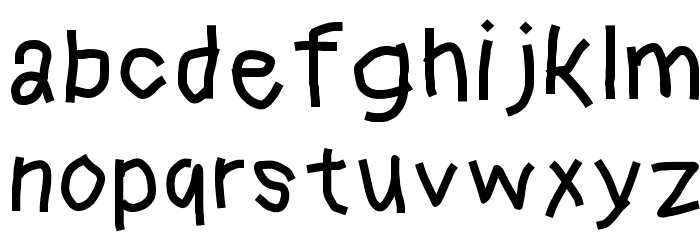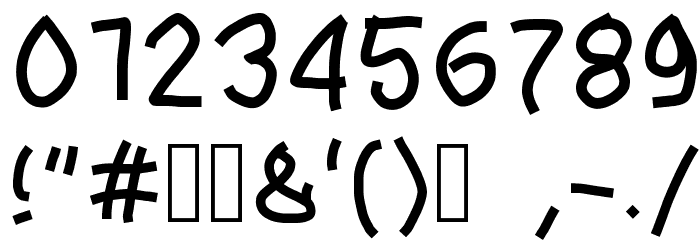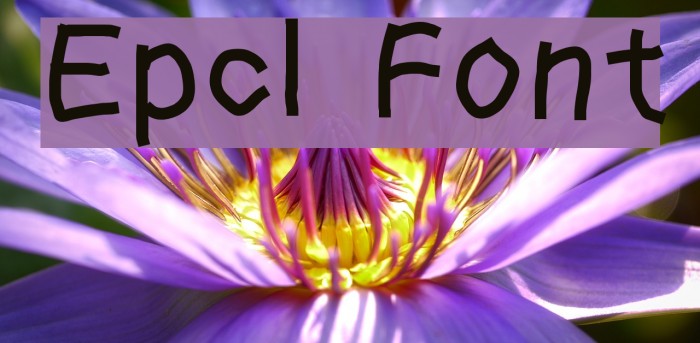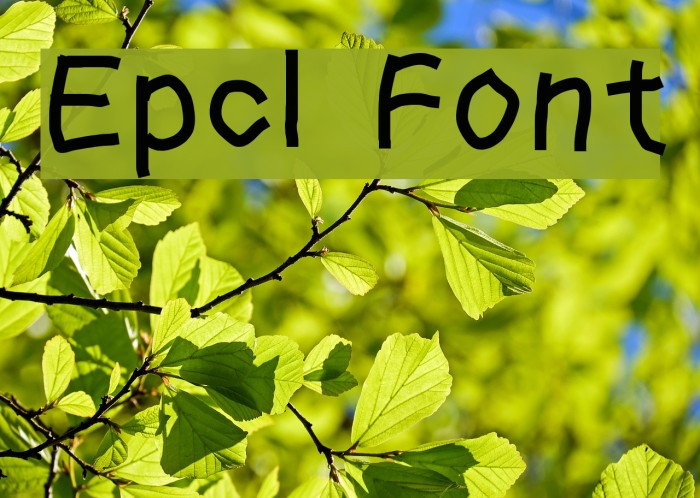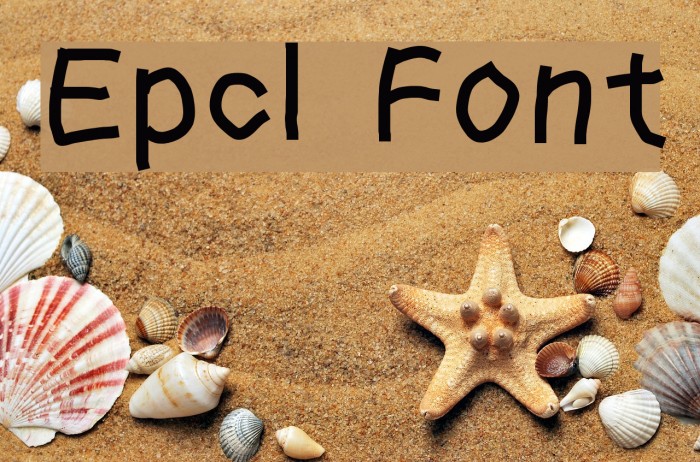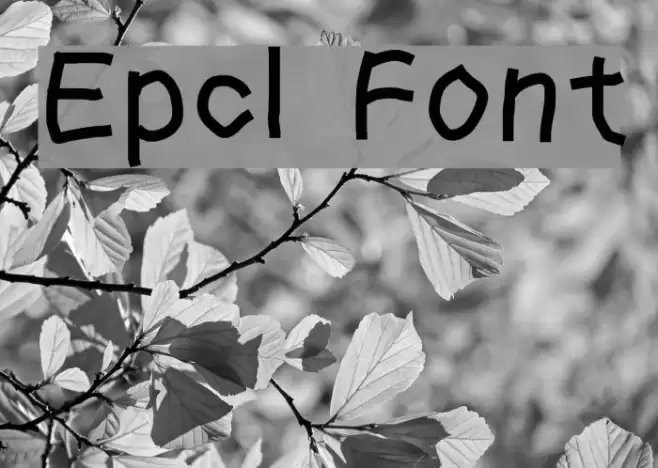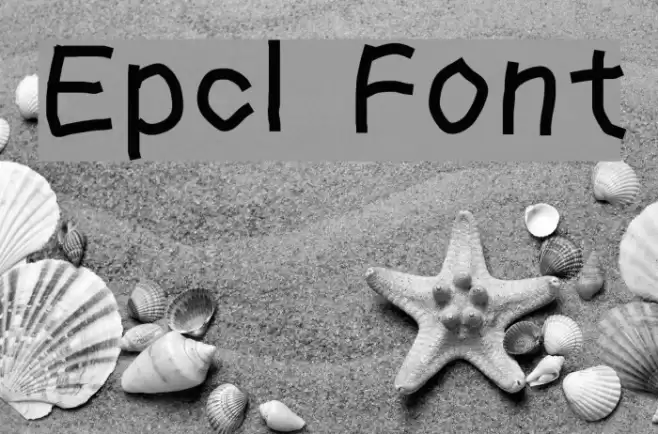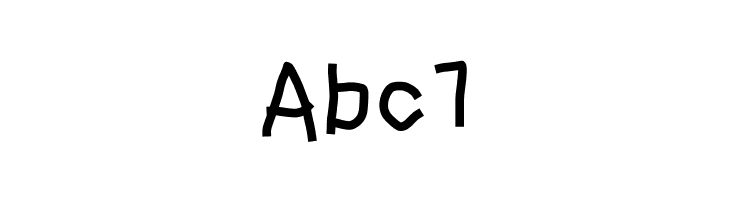
Epcl Font
This font features a playful and informal style, characterized by its irregular, hand-drawn appearance. The letters have a whimsical, slightly uneven quality, giving them a casual and approachable feel. The strokes are bold and consistent, with a medium contrast between thick and thin lines. The characters are slightly condensed, contributing to a compact and energetic look. This font's unique style makes it suitable for creative projects that require a personal touch, such as children's books, comic strips, or playful branding materials. Its distinctiveness ensures that it stands out in any design context.
A playful, hand-drawn font with bold strokes and a whimsical style.
- Proposed Projects: Ideal for children's books, comic strips, playful branding, and creative projects.
- Overall Style: Playful